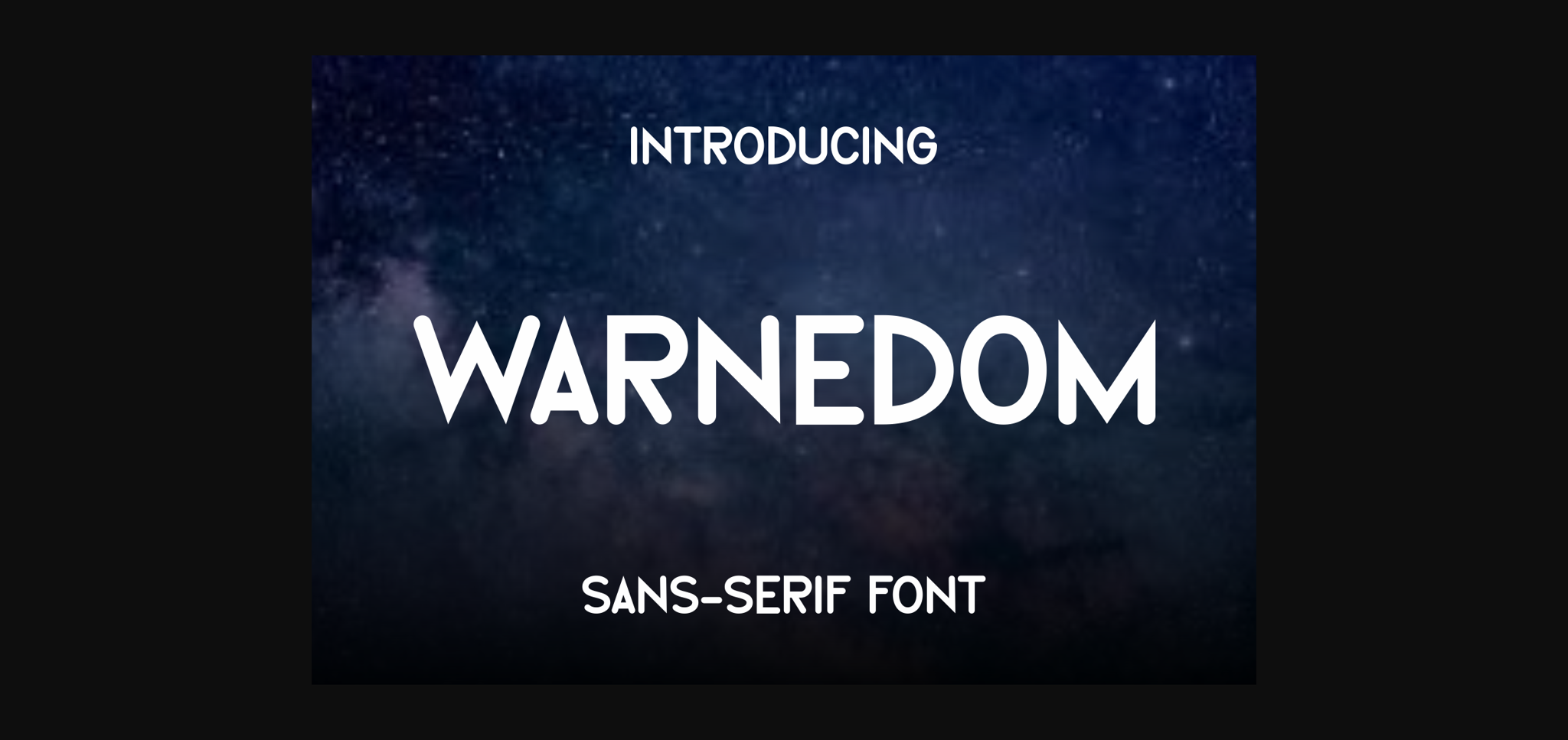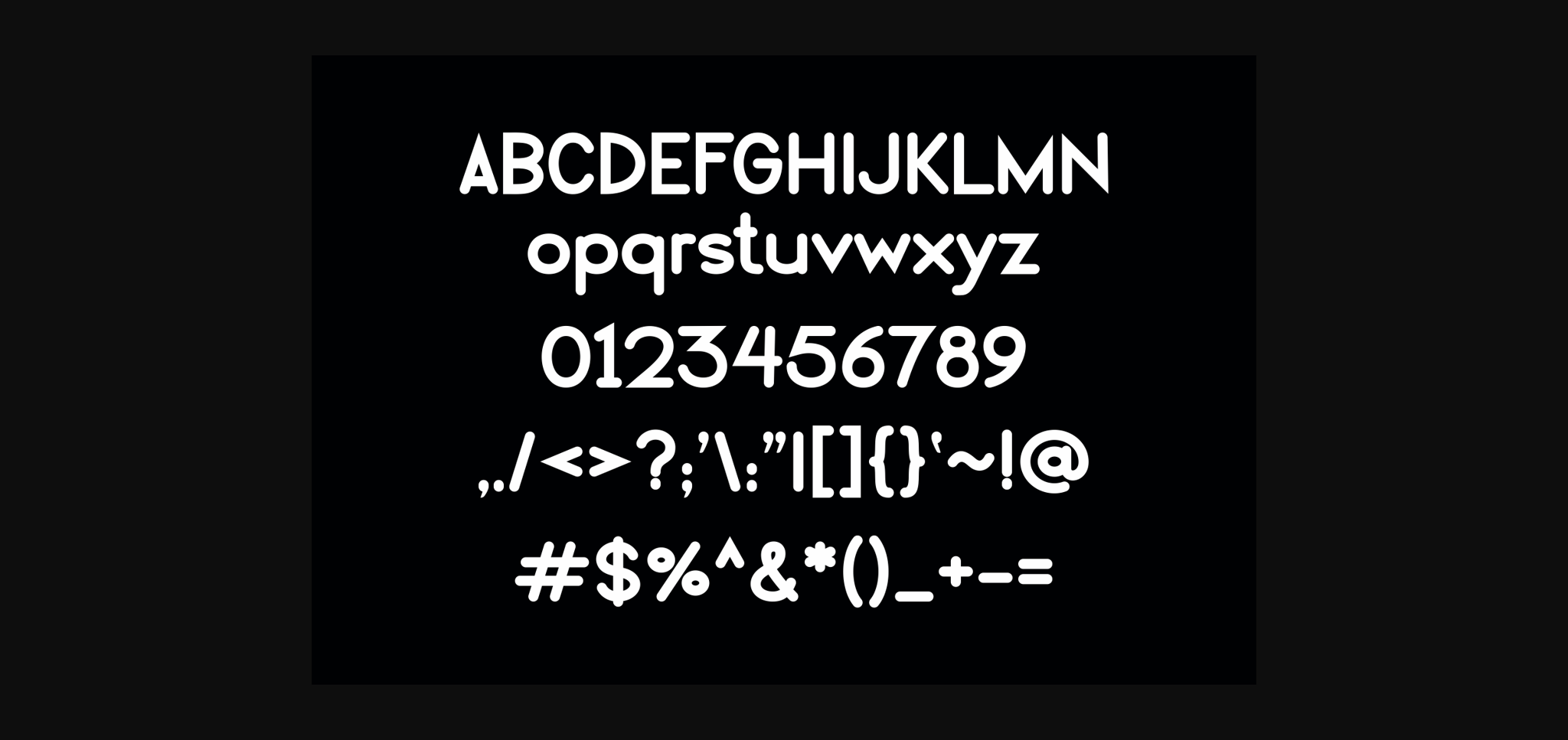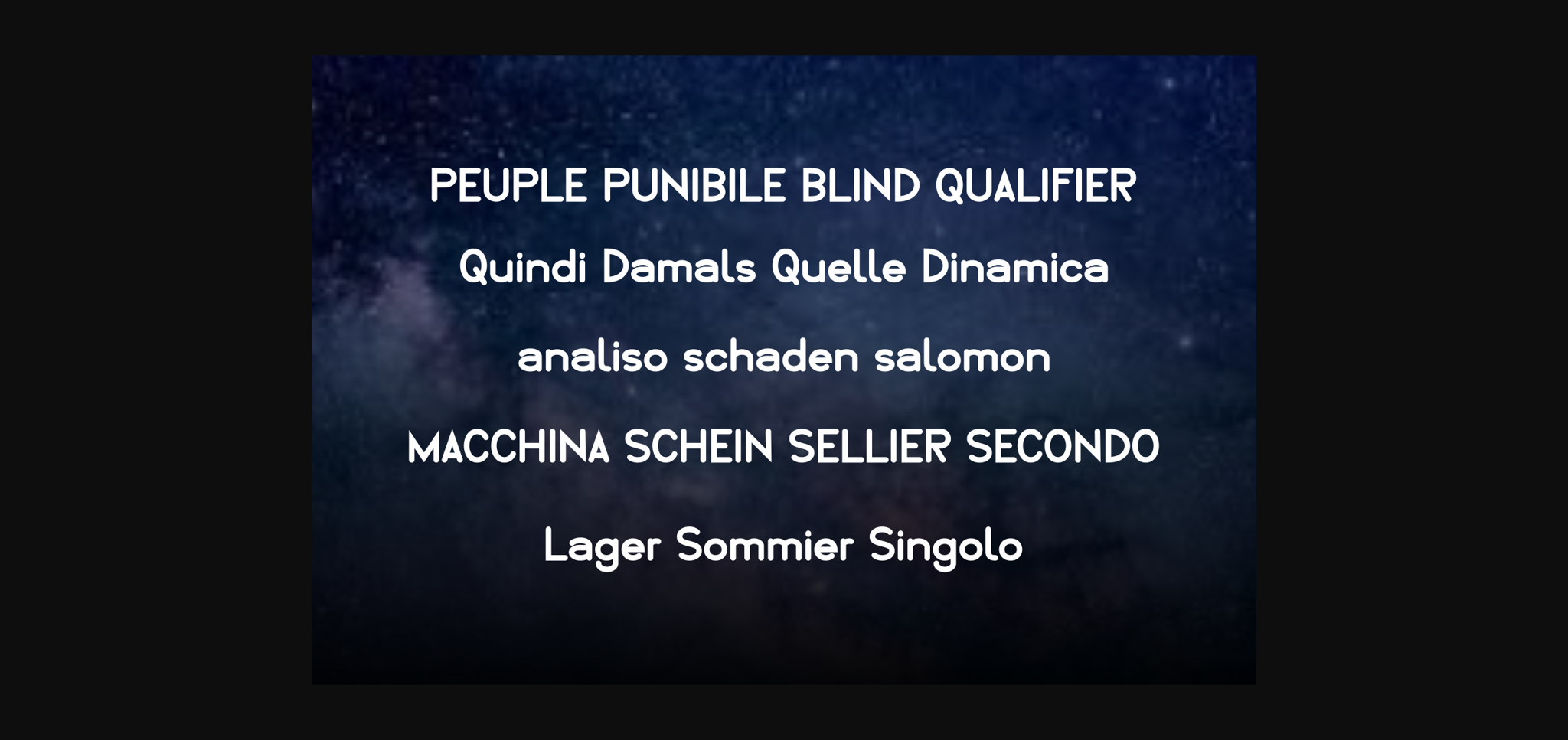
HomeSans Serif FontsWarnedom Font Sans Serif Fonts Warnedom Font FacebookXPinterestWhatsApp 1 of 5 ... Warnedom Font Poster 2... Warnedom Font Poster 3... Warnedom Font Poster 4... Warnedom Font Poster 5... About Warnedom Font Warnedom is a cool and unique sans serif font. Fall in love with its incredibly distinct and timeless style and use it to create spectacular designs! DOWNLOAD NOW People also explored Christmas Bella Font Valentine Font Abrocol Font Kanesia Font The Amberton Font Bokeseni UltraBlack Italic Font Peviquesa Font Hazy Moon Font Bestardy Font 314 0 TagsWarnedom Font Previous articleGropo FontNext articleThe Rismak Font LEAVE A REPLY Cancel reply Comment: Please enter your comment! Name:* Please enter your name here Email:* You have entered an incorrect email address! Please enter your email address here Website: Save my name, email, and website in this browser for the next time I comment. Personal Use Free Summer Pisces Personal Use Free Read more about this font Dacquoise Personal Use Free Read more about this font Stentiga Personal Use Free Read more about this font Stronger Personal Use Free Read more about this font BLOG How to Install and Use Fonts on Windows, macOS, and Web Projects How to Install and Use Fonts on Windows, macOS, and Web Projects Fonts are a crucial part of design and branding. Whether you’re designing a... Using Fonts in Digital Marketing: Tips to Strengthen Your Brand Identity Modern Sans-Serif Fonts That Brands Love in 2025 Best Fonts for YouTube Videos: Make Your Thumbnails Stand Out